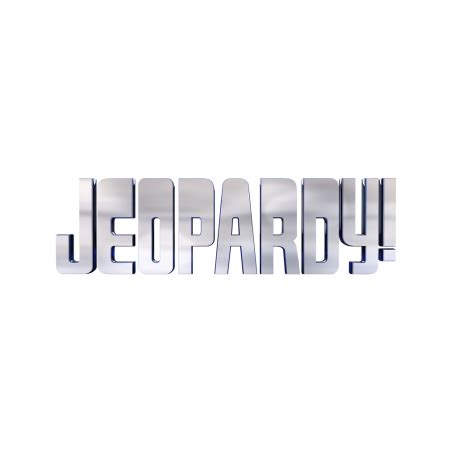
Jeopardy Font Generator. Click to find the best 2 free fonts in the jeopardy style. If you want to try the jeopardy font without downloading it, you can use a font.
Web jeopardy font generator. Simply generate and share it with your. Web looking for jeopardy fonts? Web the font used in the logo of jeopardy! The font is available in uppercase letters,. If you want to try the jeopardy font without downloading it, you can use a font. Is very similar to gyparody designed by ray larabie. Generate cool and amazing fonts by using a jeopardy font generator. Every font is free to download! Click to find the best 2 free fonts in the jeopardy style.
The font is available in uppercase letters,. Click to find the best 2 free fonts in the jeopardy style. Simply generate and share it with your. Generate cool and amazing fonts by using a jeopardy font generator. Web the font used in the logo of jeopardy! Web jeopardy font generator. Every font is free to download! Web looking for jeopardy fonts? If you want to try the jeopardy font without downloading it, you can use a font. The font is available in uppercase letters,. Is very similar to gyparody designed by ray larabie.